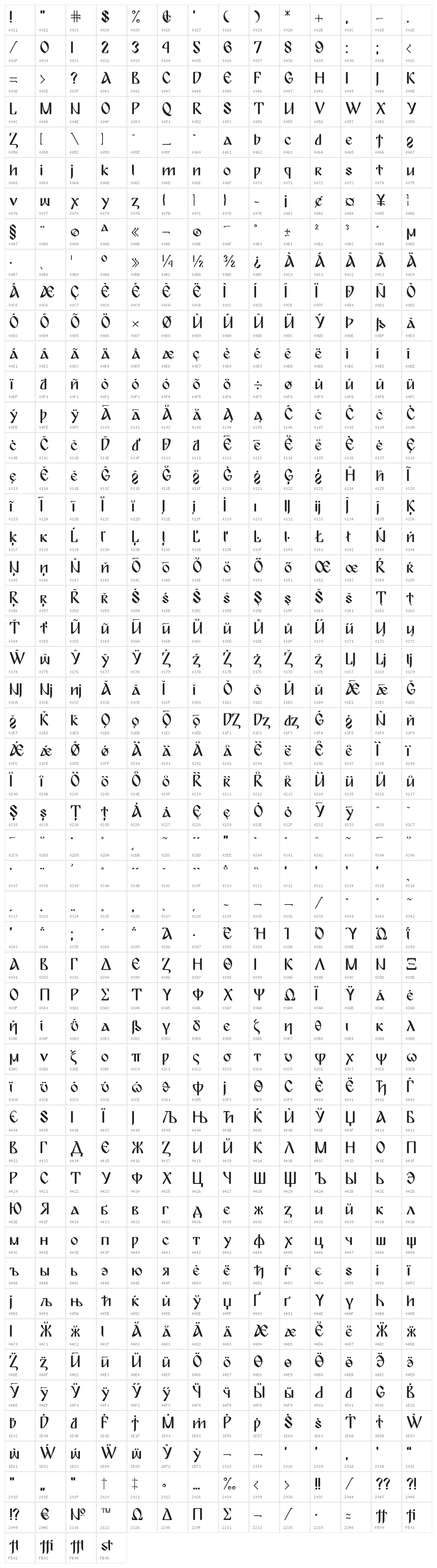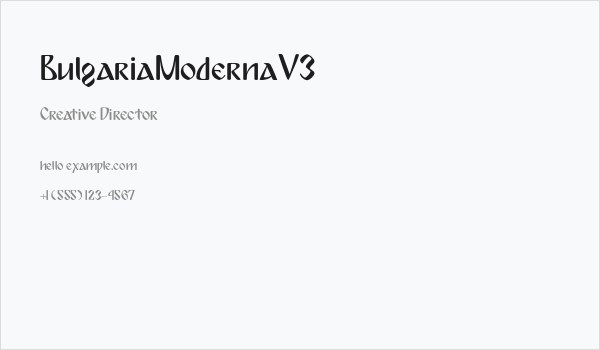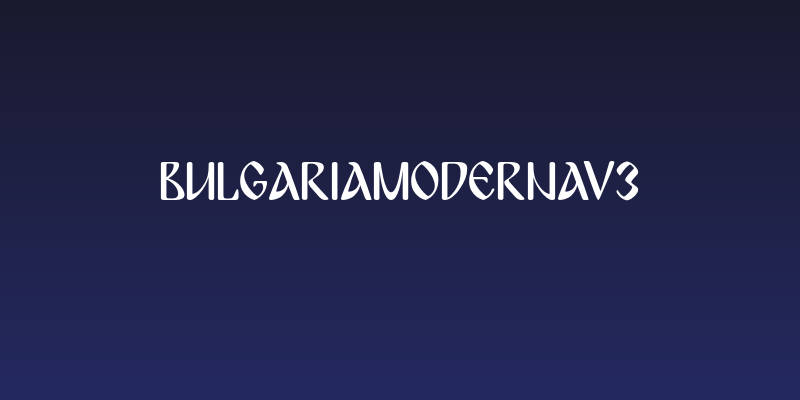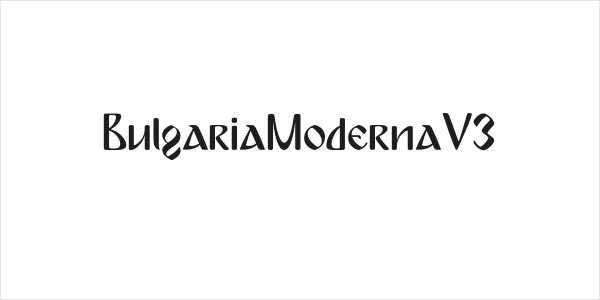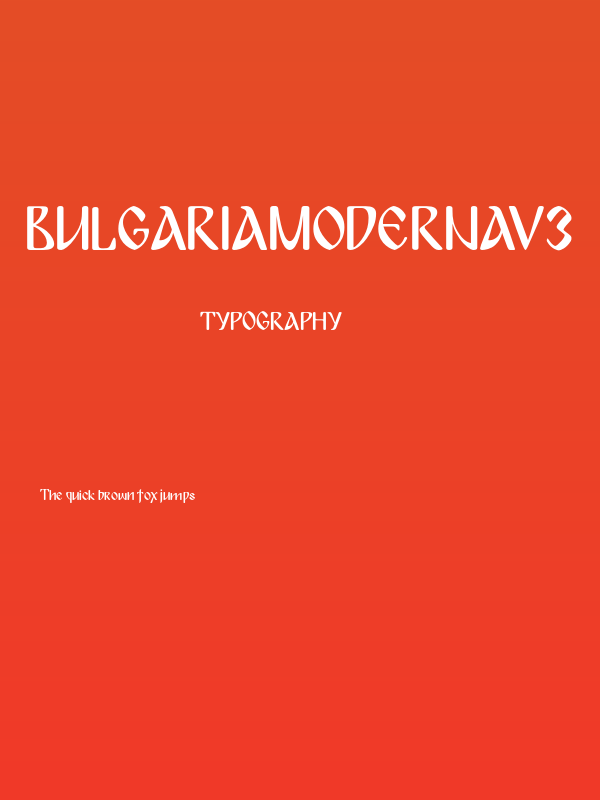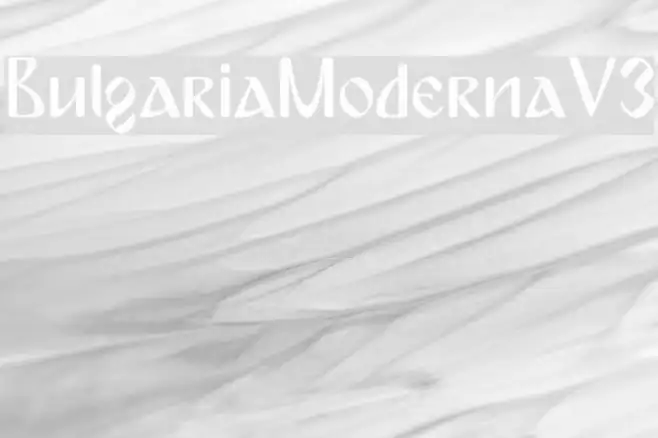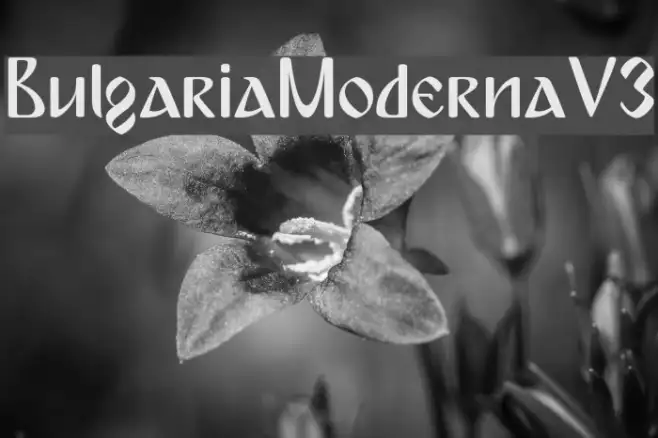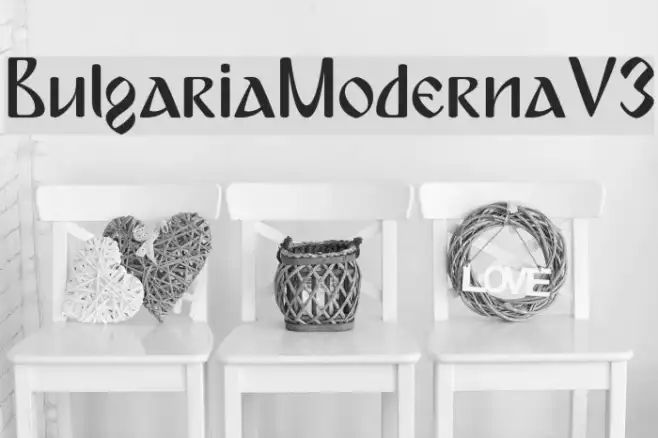
BulgariaModernaV3 Font
BulgariaModernaV3 Description
This font features a unique blend of modern and traditional elements, characterized by its bold and artistic letterforms. The uppercase letters exhibit a strong geometric influence with sharp angles and curves, while the lowercase letters maintain a more fluid and organic appearance. The numerals are distinct and easily readable, complementing the overall style. Special characters are creatively designed, adding a decorative touch. The font's high contrast between thick and thin strokes enhances its visual impact, making it suitable for eye-catching designs.
| Proposed Projects | Ideal for branding, posters, headlines, and any project requiring a striking and artistic typeface. |